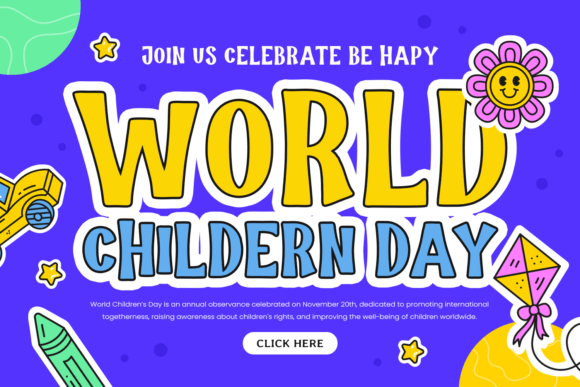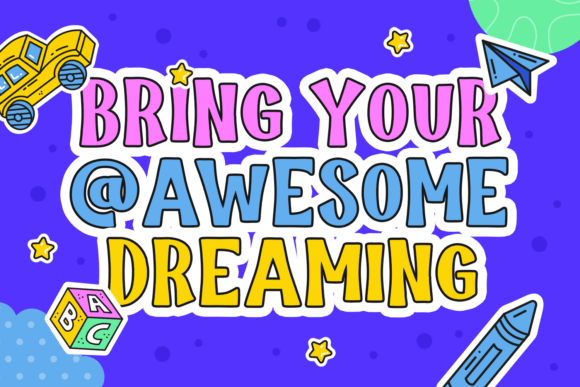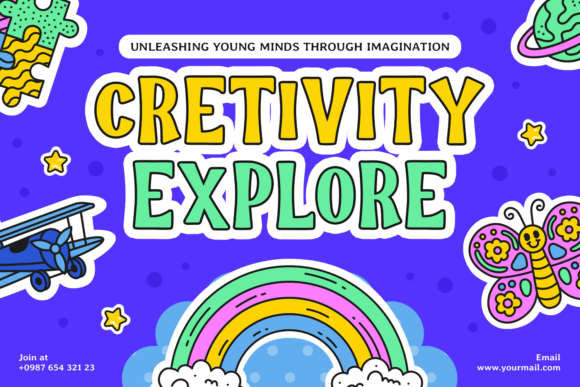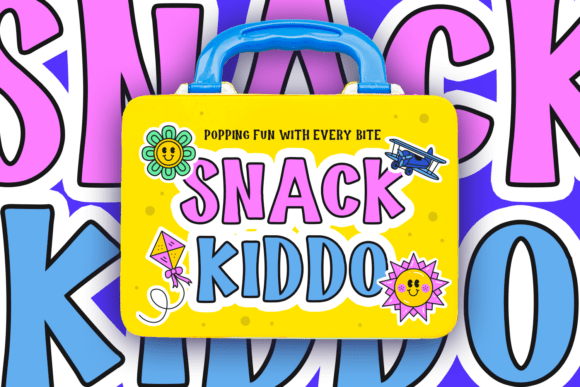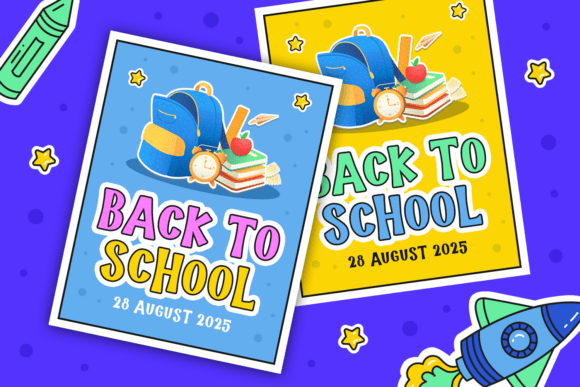
Bringing Childhood Wonder to Your Designs
Remember the magic of learning to write in kindergarten, with crayons in hand and a blank notebook waiting to be filled? The thrill of creating your own stories, doodling with abandon, and watching your scribbles transform into beautiful words. That same sense of wonder and joy is what inspired the creation of Homework Font.
This lively and decorative typeface is designed to capture the essence of childhood, with bold, playful letters that bring a sense of fun and energy to any project. Whether you’re designing educational materials, logos, or content for kids, Homework Font is the perfect choice to create a friendly and approachable atmosphere that appeals to both children and adults. Its unique style blends creativity and clarity, making it a valuable asset for designers looking to add a touch of whimsy to their work.
Key Features of Homework Font
- Font Family: Homework Font is a sans-serif font family designed specifically for digital use, with a focus on readability and clarity.
- Unique Characteristics: Features a distinctive, modern aesthetic with clean lines, rounded edges, and subtle flair at the terminals, making it well-suited for educational and corporate contexts.
Design Review: Homework Font
Overall, Homework Font is a decent font choice for its intended use, but it’s not without its flaws. Here are some points that stood out:
- ✨ Friendly and approachable tone: Homework Font does a great job of evoking a sense of warmth and friendliness, making it perfect for educational materials or children’s content.
- ✨ Clear and readable: The font is highly legible, even at smaller sizes, which is essential for long blocks of text.
- ✨ Versatile: Homework Font can be used for a variety of applications, from worksheets to presentations.
- ⚠️ Limited style options: Homework Font is a fairly straightforward, sans-serif font with no bold or italic variants.
- ⚠️ Not ideal for body text: While the font is clear and readable, it can feel a bit bland and unengaging for larger blocks of text.
- ⚠️ May not be suitable for high-end applications: Homework Font is a functional font, but it may not be sophisticated enough for high-end branding or design projects.
Overall, Homework Font is a solid choice for educational or children’s content, but it may not be the best option for more complex or high-end design projects.
Tips for Getting the Most Out of “Homework Font”
To get the most out of “Homework Font,” try using it in conjunction with other educational-themed graphics and fonts. You can also experiment with different font sizes and styles to create a visually appealing design.
“Homework Font” is commonly used in educational materials such as:
- Assignments and worksheets
- Lesson plans and presentations
- Study guides and flashcards
Alternatives to Homework Font for Designers
Great Vibes is a beautiful, handwritten script font perfect for adding a touch of elegance to your designs. It’s ideal for use in invitations, quotes, and other creative projects where a personal touch is needed. Great Vibes is more cursive and flowing than Homework Font, making it better suited for longer text passages.
Alex Brush is a beautiful, handwritten font with a high level of sophistication. It’s perfect for use in designs that require a sense of luxury and refinement, such as high-end branding and packaging. Alex Brush has a more polished look than Homework Font, making it better suited for formal projects.
Dancing Script is a fun, energetic font that’s perfect for use in designs that require a sense of playfulness and whimsy. It’s ideal for use in social media graphics, advertisements, and other projects where a lighthearted tone is needed. Dancing Script has a more dynamic feel than Homework Font, making it better suited for projects that require a sense of movement and energy.